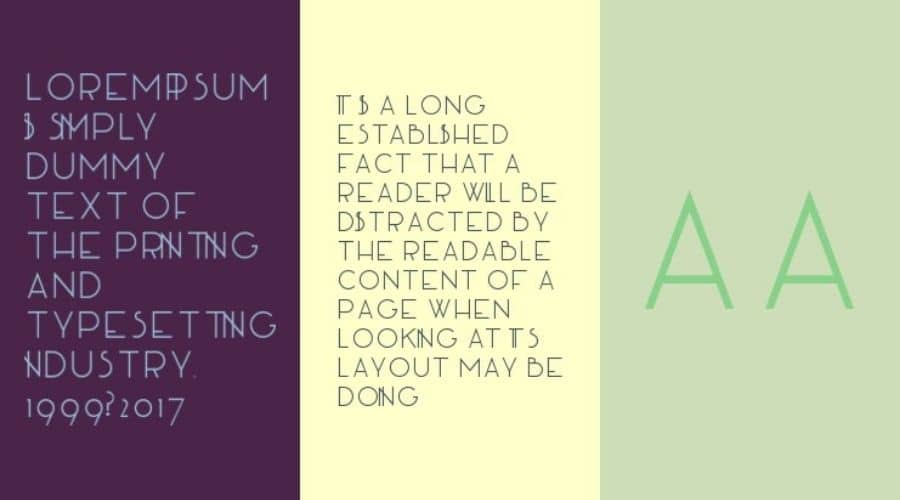
Manifesto Font
Manifesto Font is now available! A completely new sans serif typeface. Tomaz Leskovec created and published the Font. On February 26, 2019, the Font was made public. It’s a bespoke font with a thin and sleek look.Inspired by the Italian rationalist movement, this lovely typeface was created. People say you should pick your background carefully, yet this Font looks just as good on intricate and colorful backgrounds used in flyers or web designs as it does on plain ones used on business cards.
Although this typeface may appear to be a tiny gesture, designers and software businesses should perhaps focus their charitable efforts on more pressing issues. The Font was created in the spirit of free source and is aimed at small or underrepresented language communities.
Use Manifesto to introduce basic designs with a lot to say and let its capital letters shine not individually but in a combination that creates long-lasting impacts and can be used for branding presentations, package designs, posters, and a variety of other things. This basic and clean typeface is ideal for generating eye-catching headlines, posters, and other graphics.